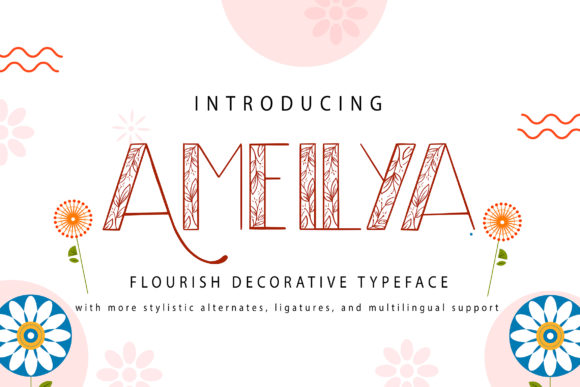
The Amellya Font: A Beautiful Decorative Delight for Creatives
I’ll never forget the time I was working on a project for a client’s wedding invitation suite. I had the design concept nailed, but I was struggling to find the perfect font to bring it all together. That’s when I stumbled upon the Amellya font, and it was love at first sight! 💕 The beautiful, flower-themed style instantly elevated my design, and I knew I had found the perfect fit.
An Honest Review of Amellya Font
- ✨ Beautiful, delicate flower-themed design that’s perfect for spring and summer projects
- ✅ Highly versatile and can be used for a variety of design projects, from greeting cards to branding materials
- ✅ Well-crafted and polished, with attention to detail in every aspect of the font
- ✅ Easy to read and understand, even at smaller font sizes
While I absolutely love the Amellya font, there are a few minor quirks to be aware of:
- ⚠️ Some of the glyphs and stylistic alternates can be a bit finicky to access, especially for beginners
- 🤔 The font may not be the best choice for very formal or traditional designs, as it has a distinctly whimsical feel
The Story Behind Amellya Font
The Amellya font was designed by a talented type designer who was inspired by the beauty of nature and the elegance of traditional typography. With a passion for creating unique and eye-catching fonts, the designer poured their heart and soul into crafting a font that would be both functional and visually stunning.
Q: What type of designs is Amellya best suited for?
A: Amellya is perfect for a variety of design projects, including greeting cards, branding materials, quotes, posters, and more!
Q: Is Amellya a difficult font to use?
A: While Amellya has some advanced features, it’s actually quite easy to use, even for beginners. With a little practice, you’ll be creating beautiful designs in no time!